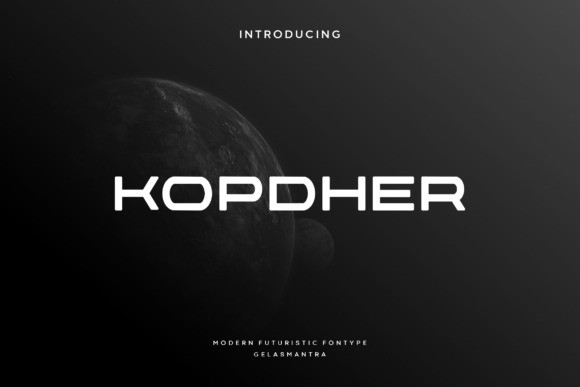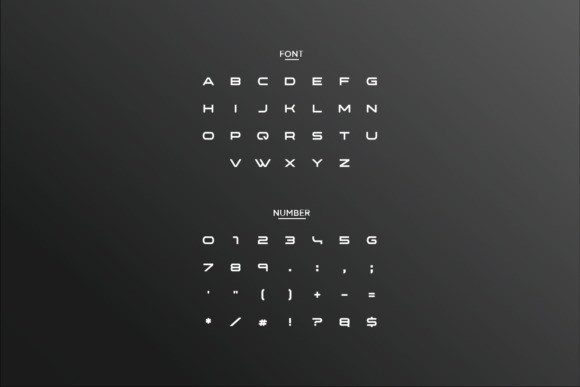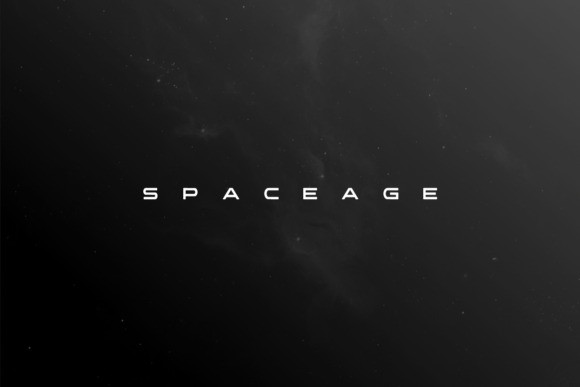
Kopdher Font
Kopdher is a modern, elegant, and futuristic display font. This font would be ideal for writing web designs, business cards, or pretty much anything else that requires a unique touch. More modern and elegant if use this font is suitable for various purposes such as movies, posters, logos, labels, Webfont and any modern purposes.